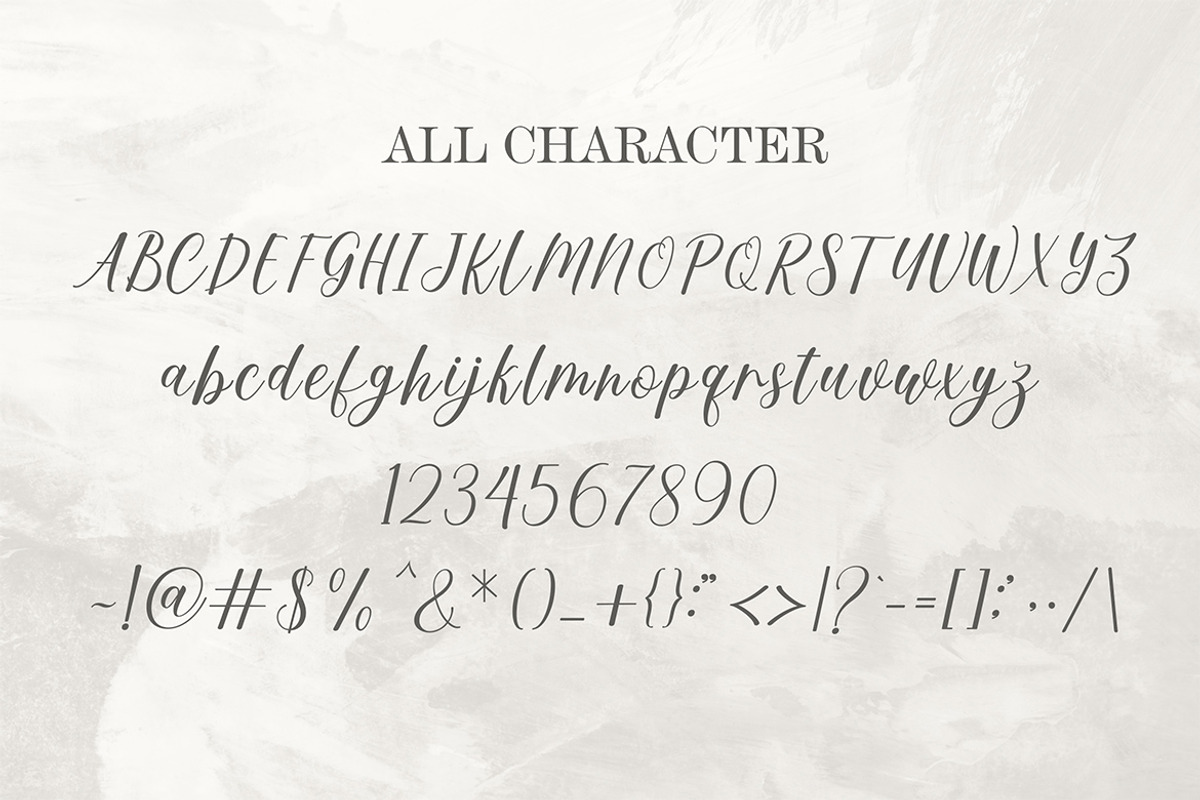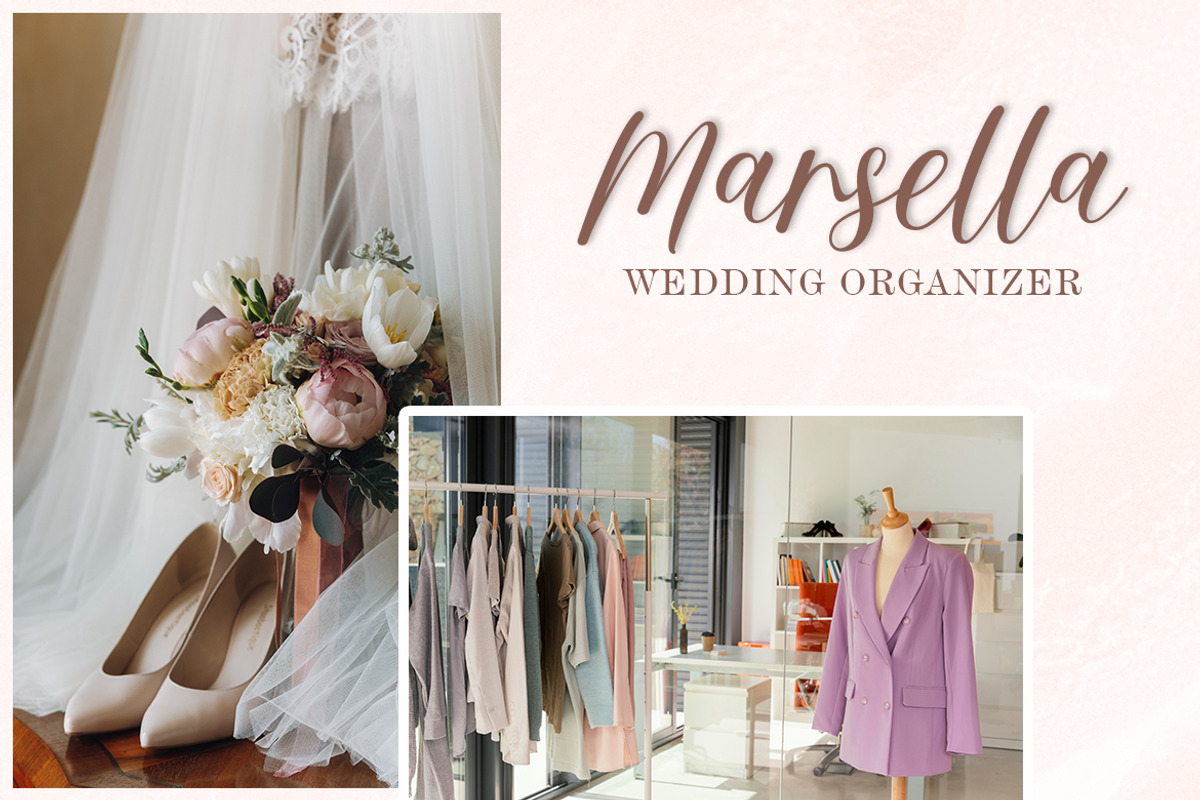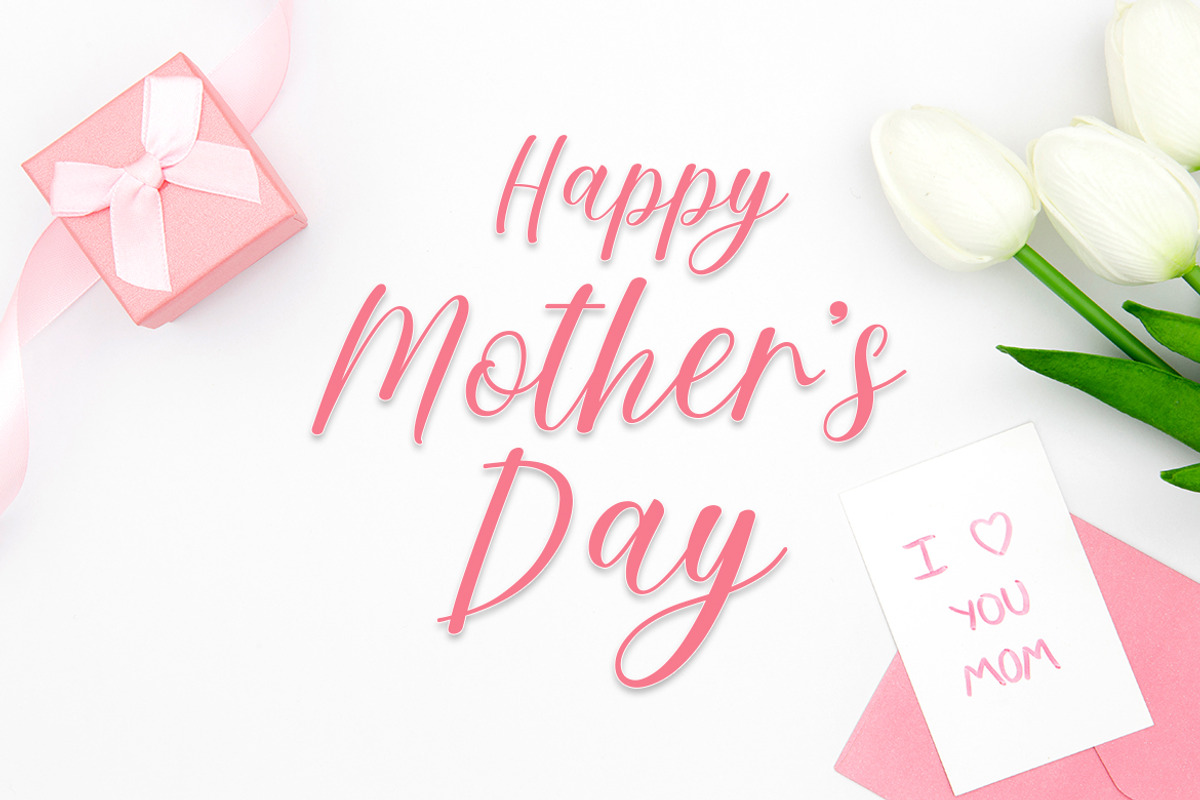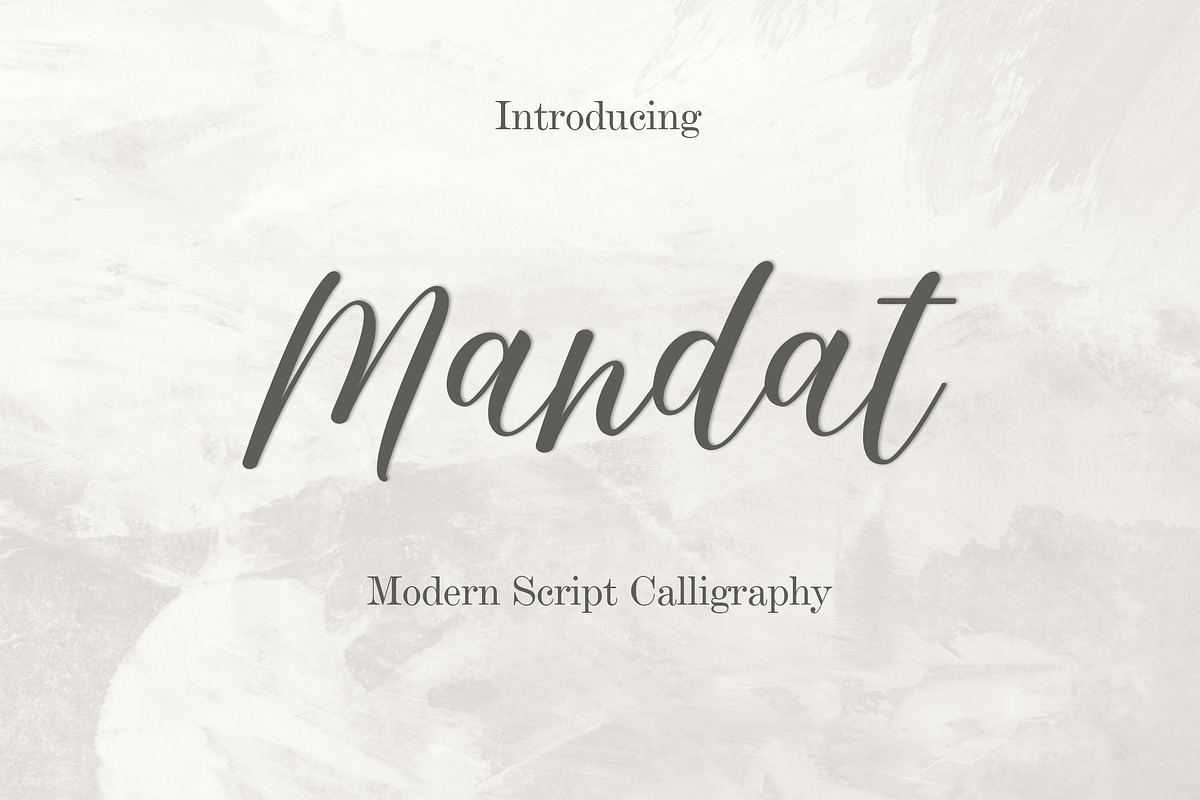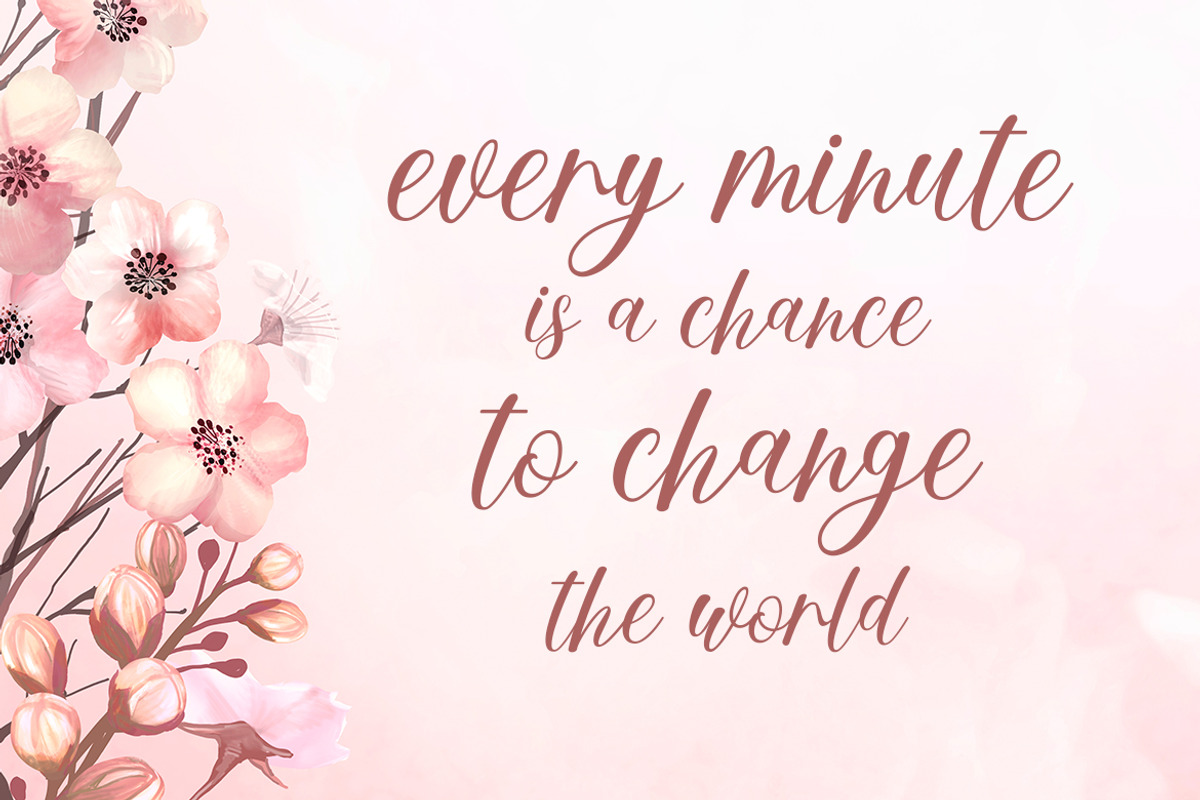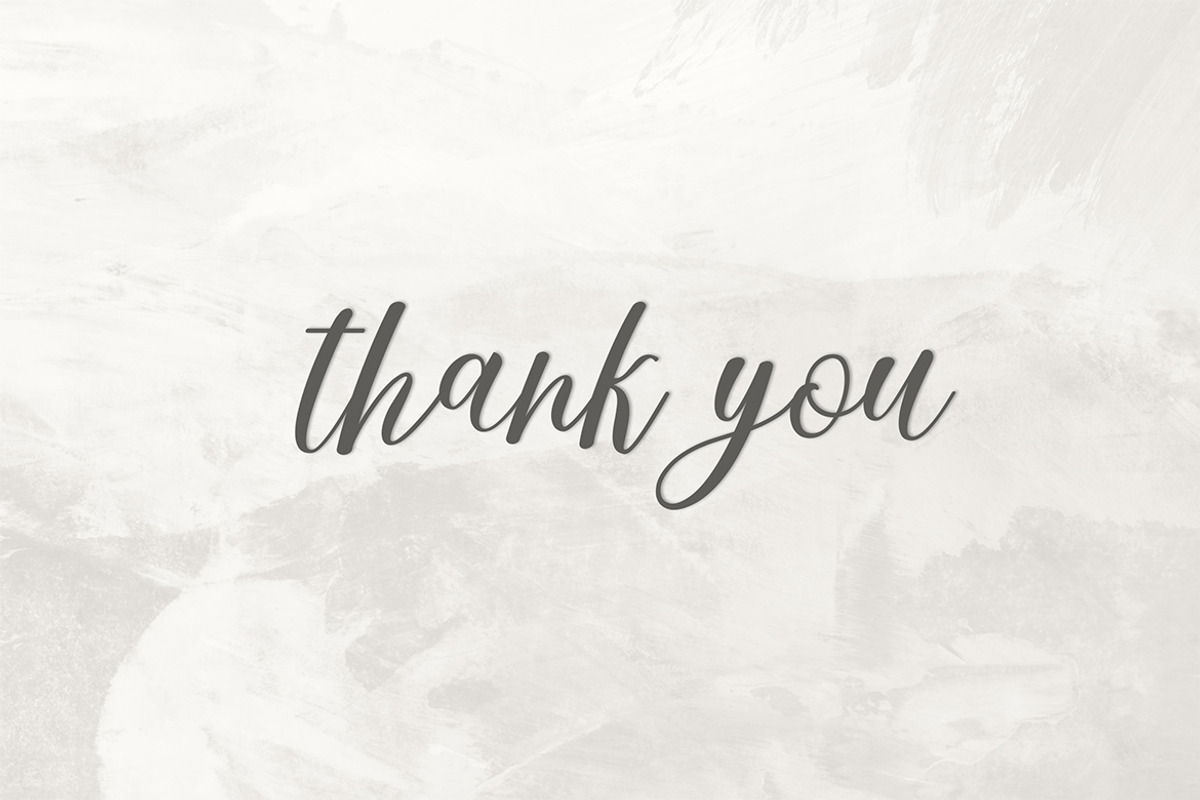
Mandat Script
Step into a whimsical universe of design with Mandat Script, a delightful interpretation of modern calligraphy. Embodying a sense of joy and subtle elegance, this flowing script font stands out with its contemporary charm. Without a doubt, Mandat Script enriches your designs with a mystic flavor of magic. Immerse yourself in the aesthetics of typography with the files included: Mandat.ttf and Mandat.otf.